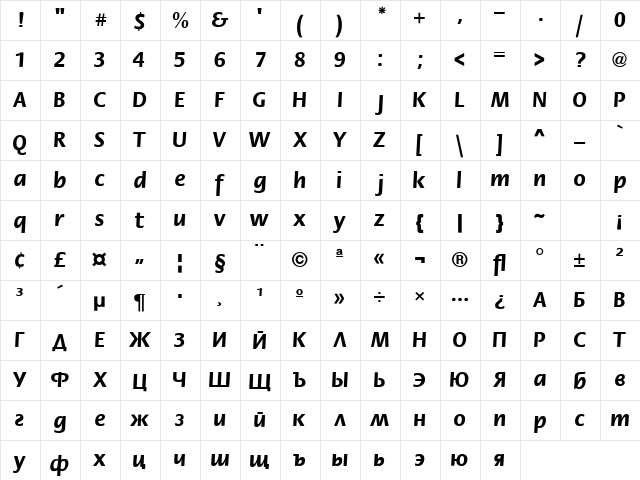
FlowerC Bold
Design Context for FlowerC Typeface
FlowerC is a composed and adaptable typeface that performs quietly and consistently across a wide range of design contexts. Its bold stroke weight gives it real presence on the page.